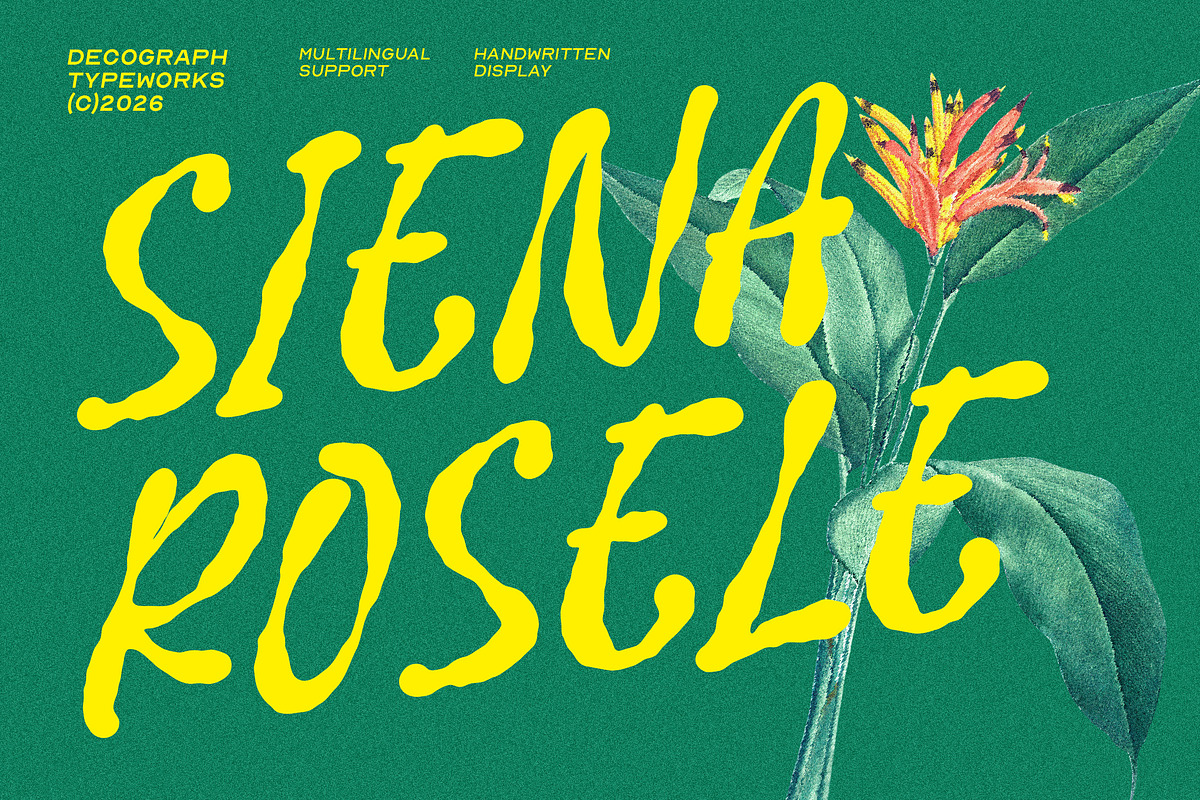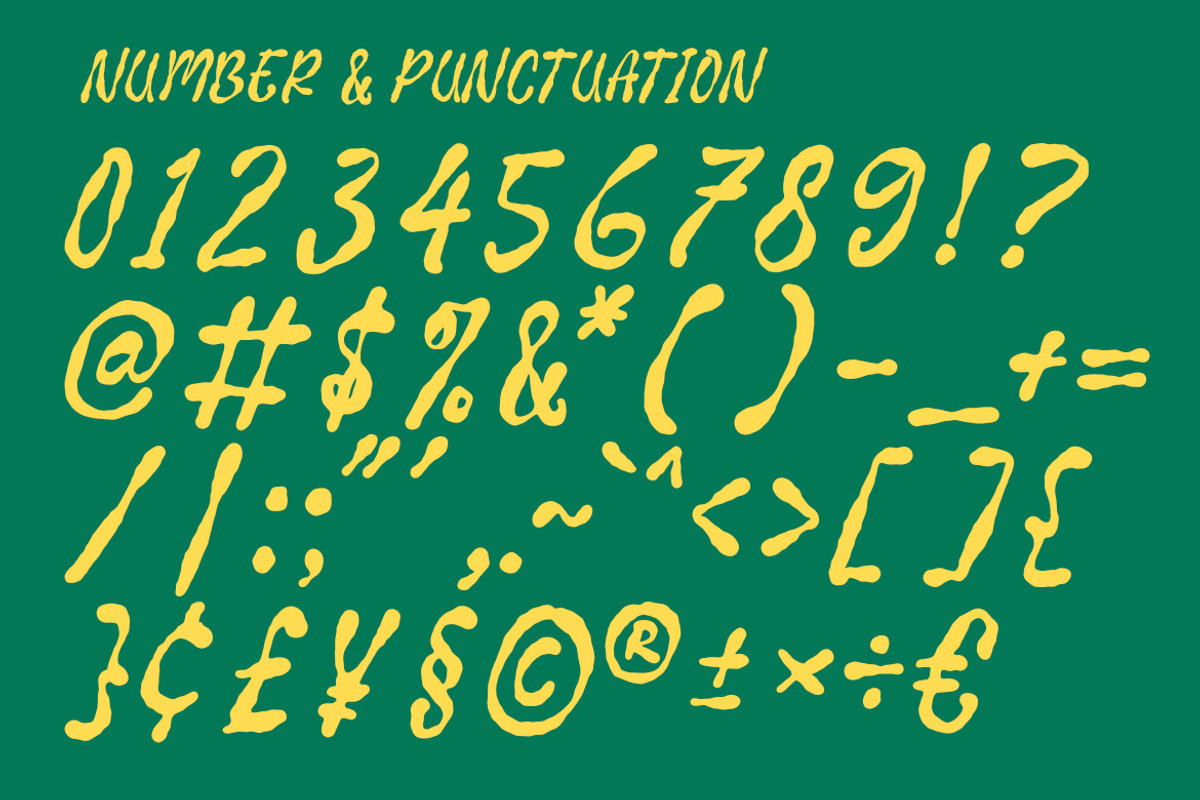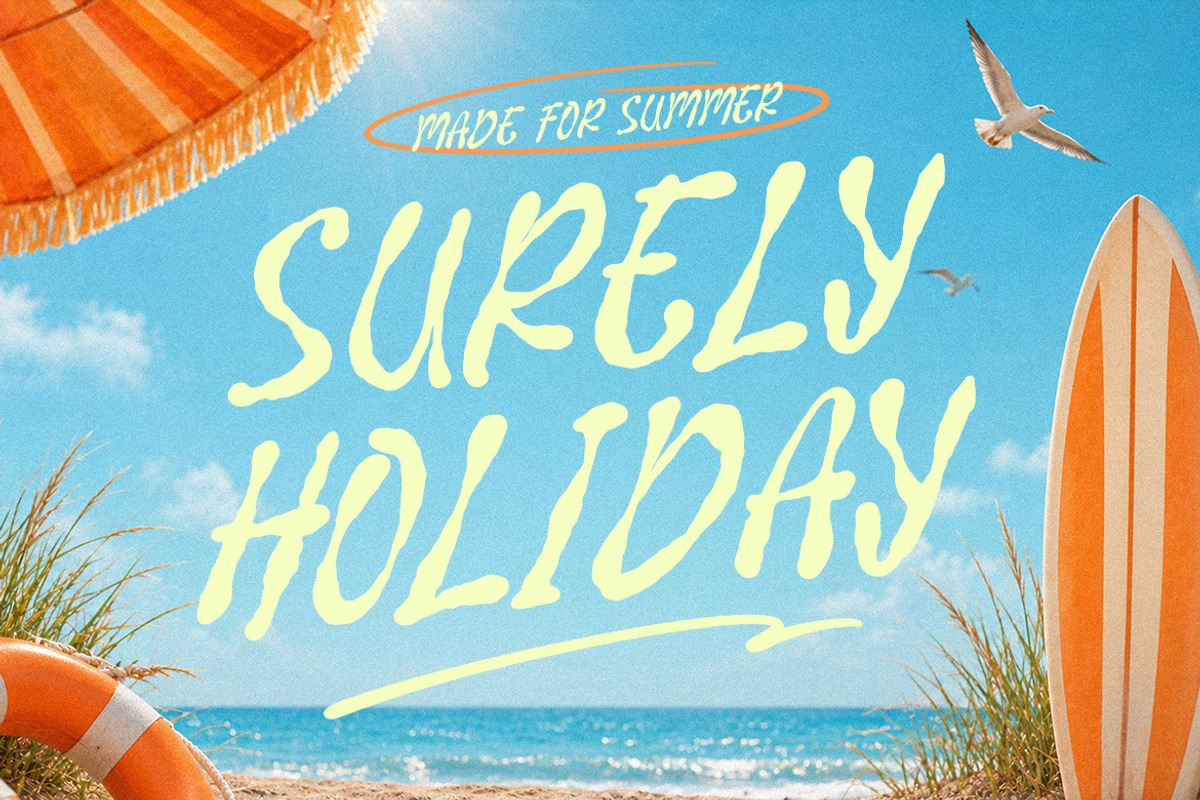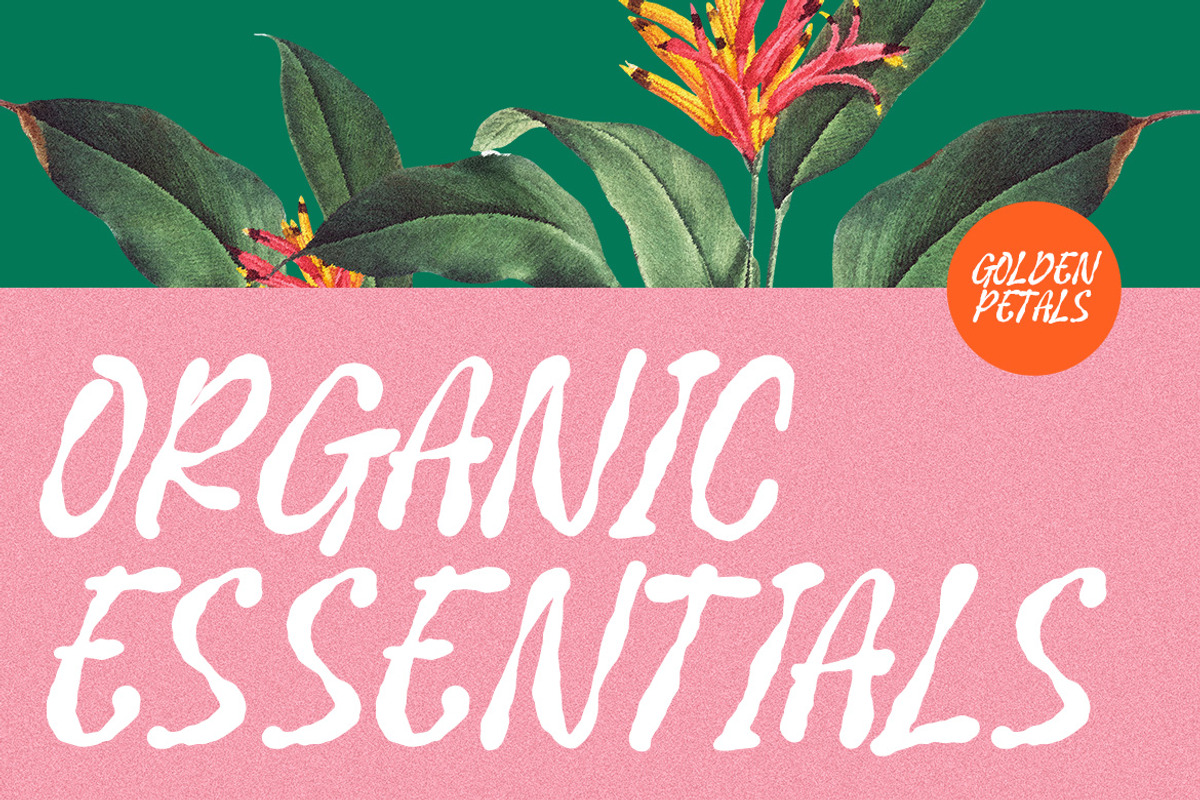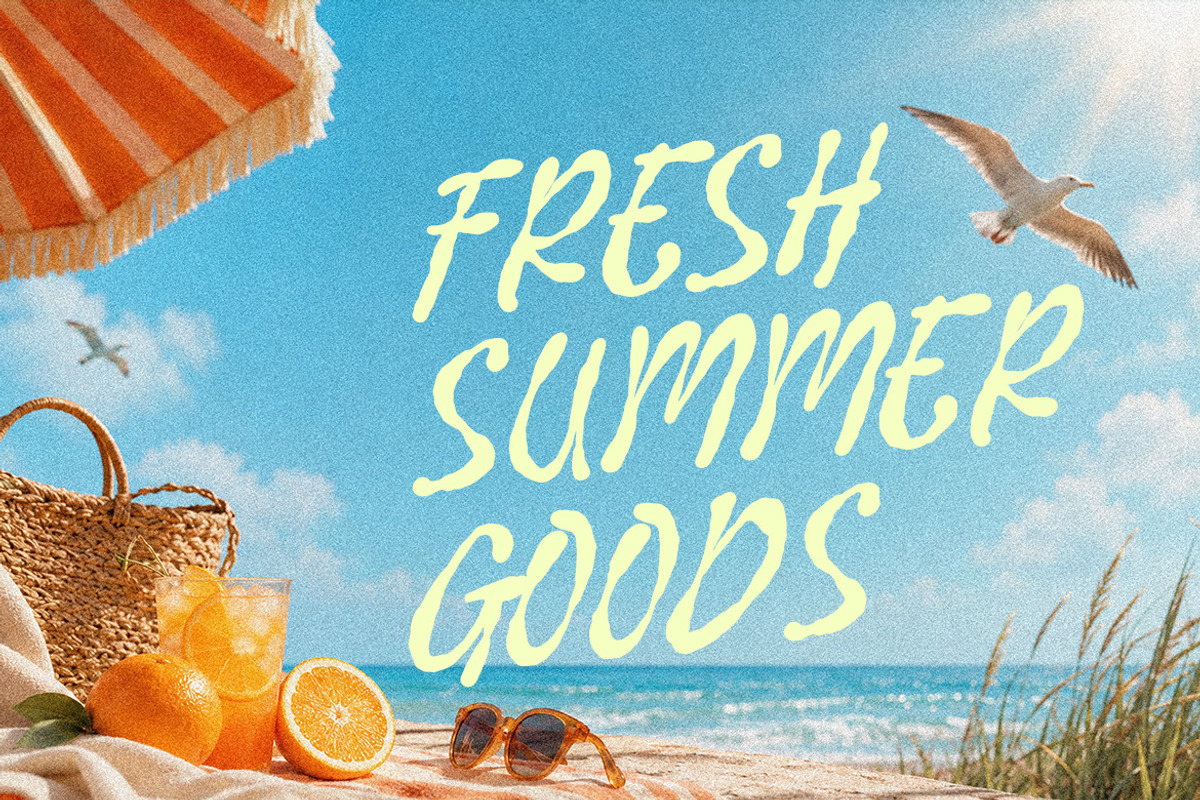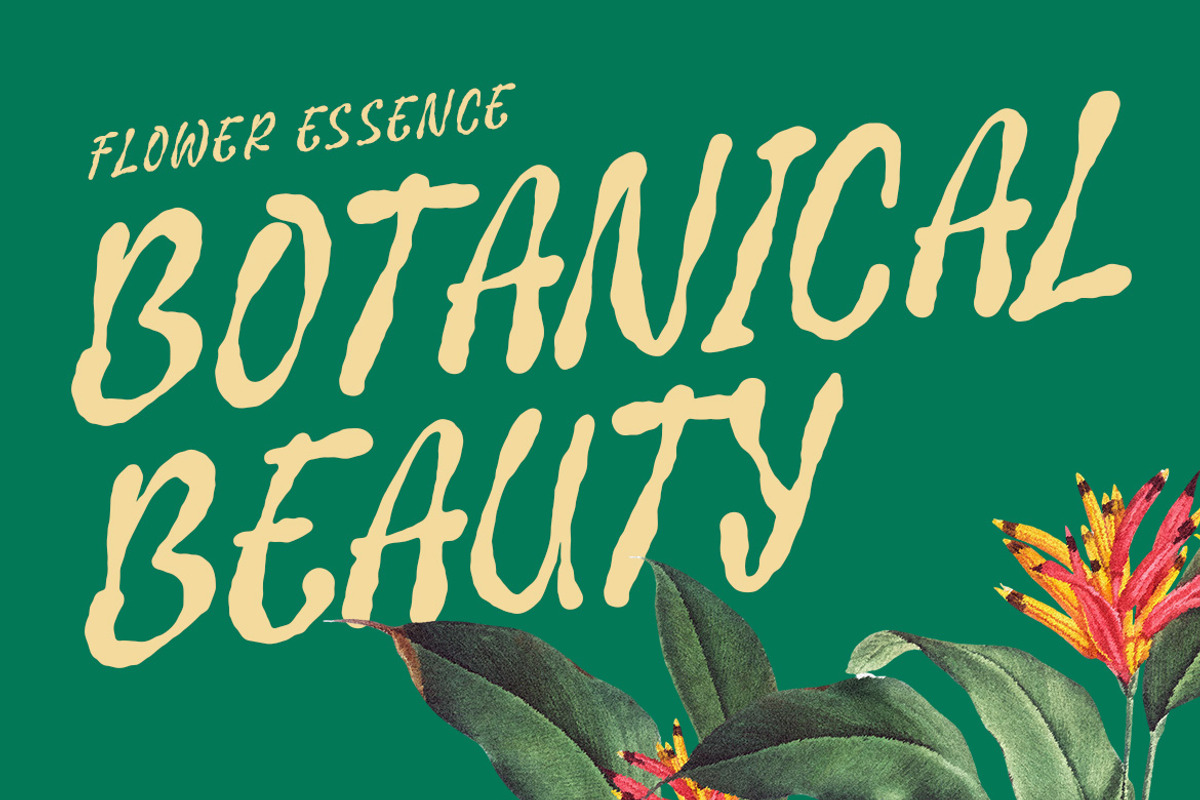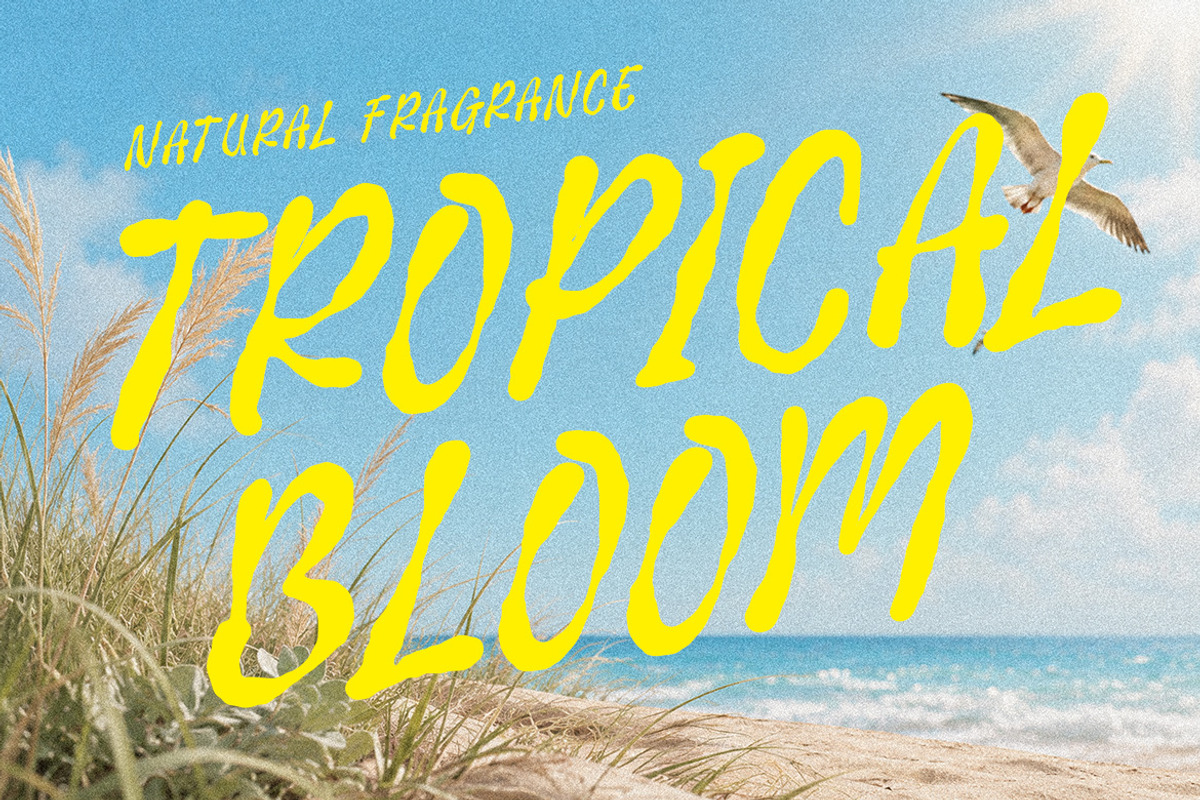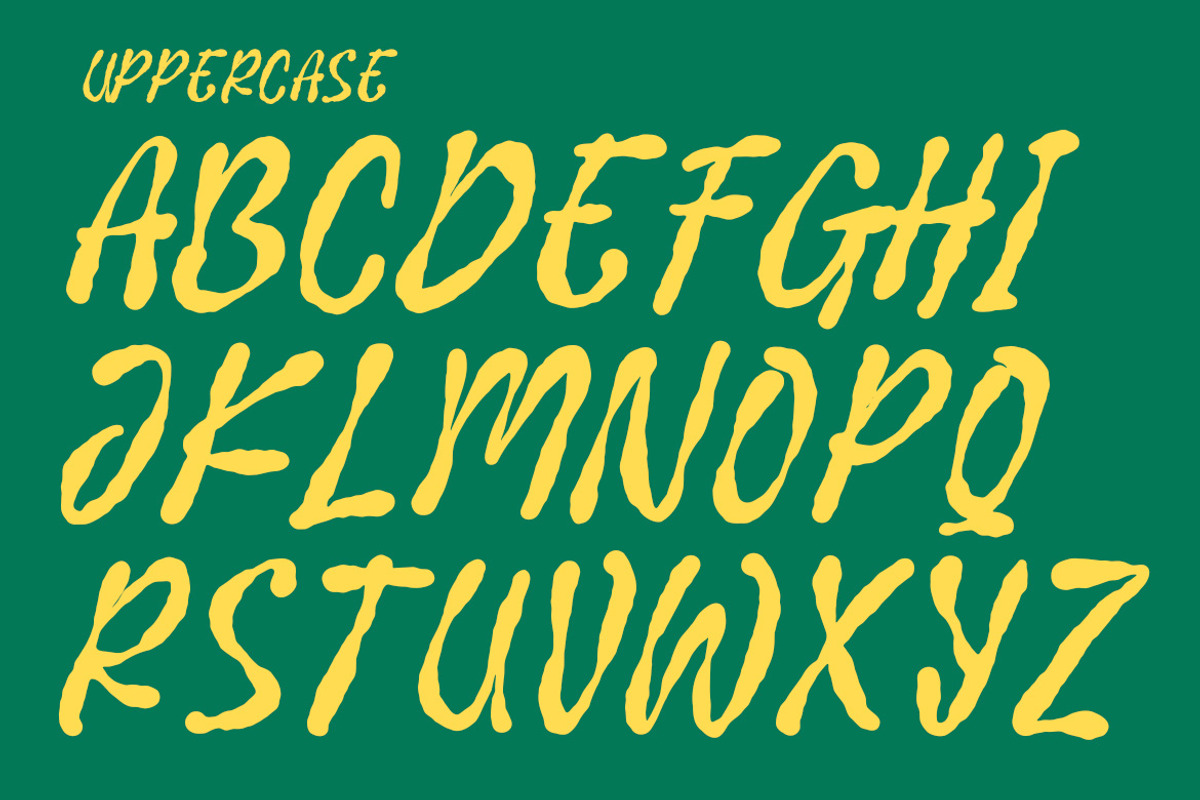
Siena Rosele – Handwritten Font
SIENA ROSELE is an organic handwritten display typeface shaped by fluid strokes, irregular contours, and naturally expressive letterforms. Its slender construction, softly varied stroke weight, loose curves, and handcrafted terminals create a relaxed visual rhythm with a distinctive botanical character. The lettering feels personal and spontaneous while remaining strong enough for prominent display use. Designed for beauty branding, botanical packaging, fashion graphics, editorial headlines, posters, lifestyle products, and boutique identities, SIENA ROSE brings a warm visual personality that feels artistic, natural, feminine, and effortlessly contemporary.
Smooth Kerning